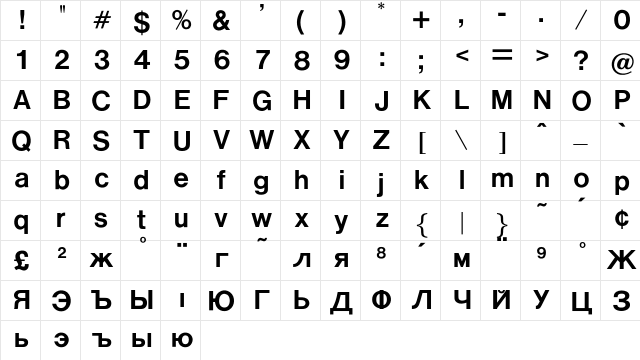
Complete OPTIRussian-Gothic Regular glyph index. Displaying only characters natively supported by OPTIRussian-Gothic Regular font.
OPTIRussian-Gothic takes a clean, functional approach - its unadorned letterforms prioritise legibility and work reliably across screen and print environments.
Font Pairing: Works well alongside a characterful serif or display font that can carry the expressive load while OPTIRussian-Gothic handles the functional copy.
Pro Tip: Use OPTIRussian-Gothic for UI labels, navigation, and short-form body copy where clean legibility is the priority.